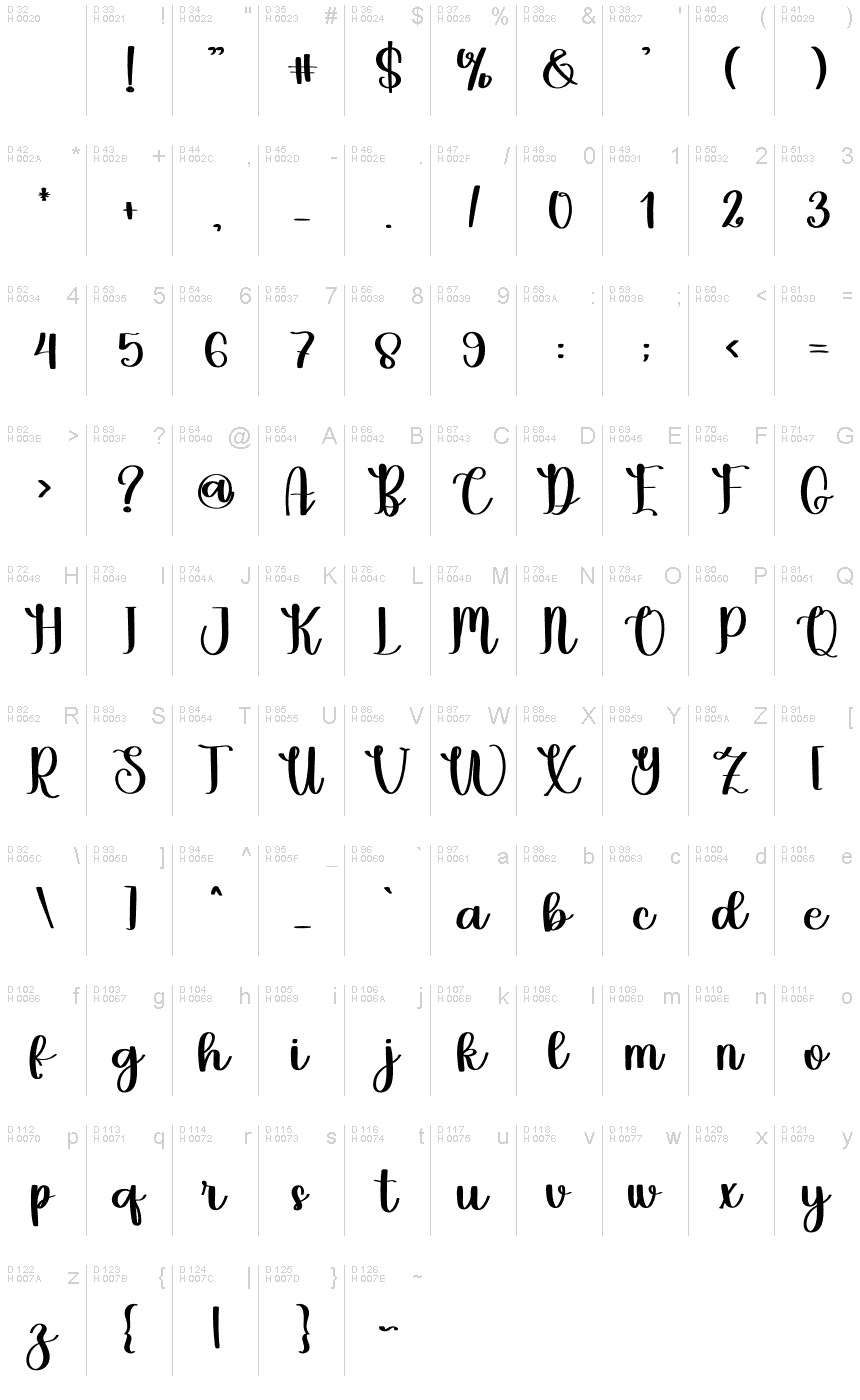
Carmilla
Carmilla, a captivating handwritten font by FreshtypeINK, effortlessly combines elegance and modernity. Its semi-bold weight adds a touch of sophistication to any design project. Whether you're crafting wedding invitations, fashion editorials, or branding materials for a luxurious hotel, Carmilla's flowing strokes and unique characters bring an air of refinement to your creations. This versatile typeface flourishes in both print and digital mediums, making it perfect for creating eye-catching logos, social media graphics, or even book covers. Embrace the charm of Carmilla and elevate your designs to new heights.